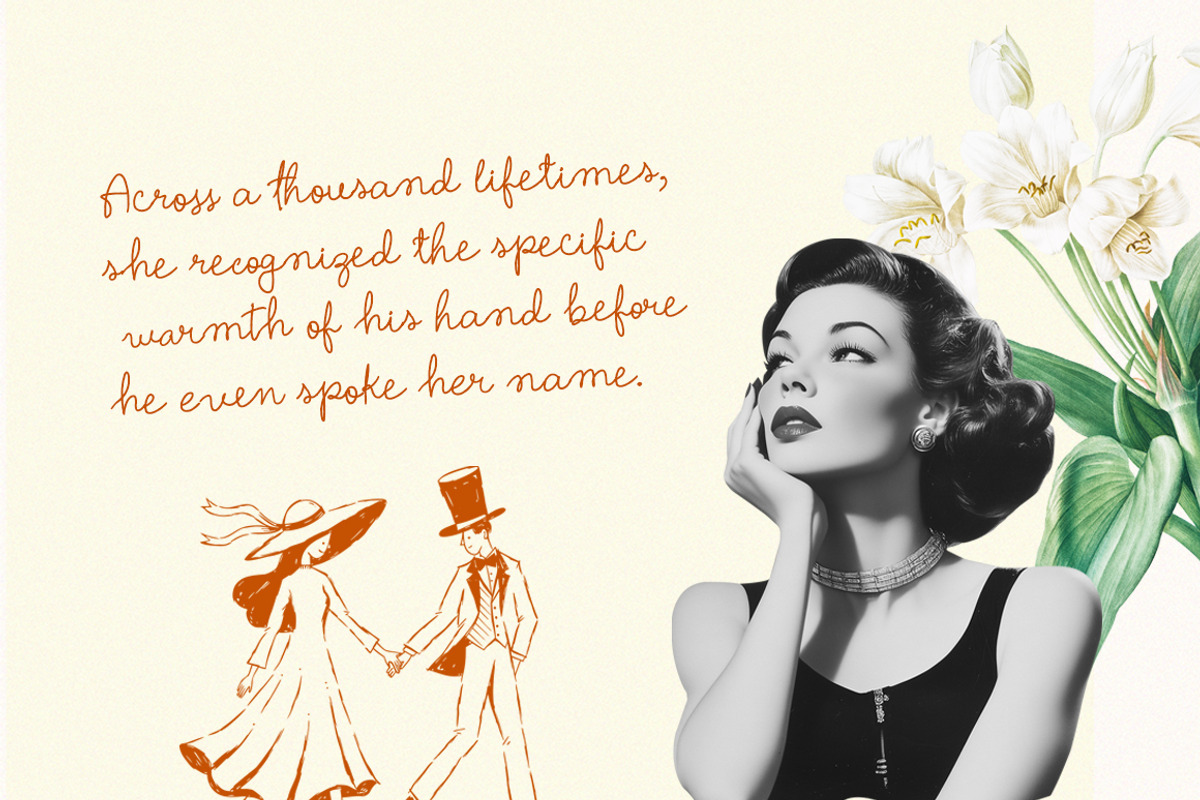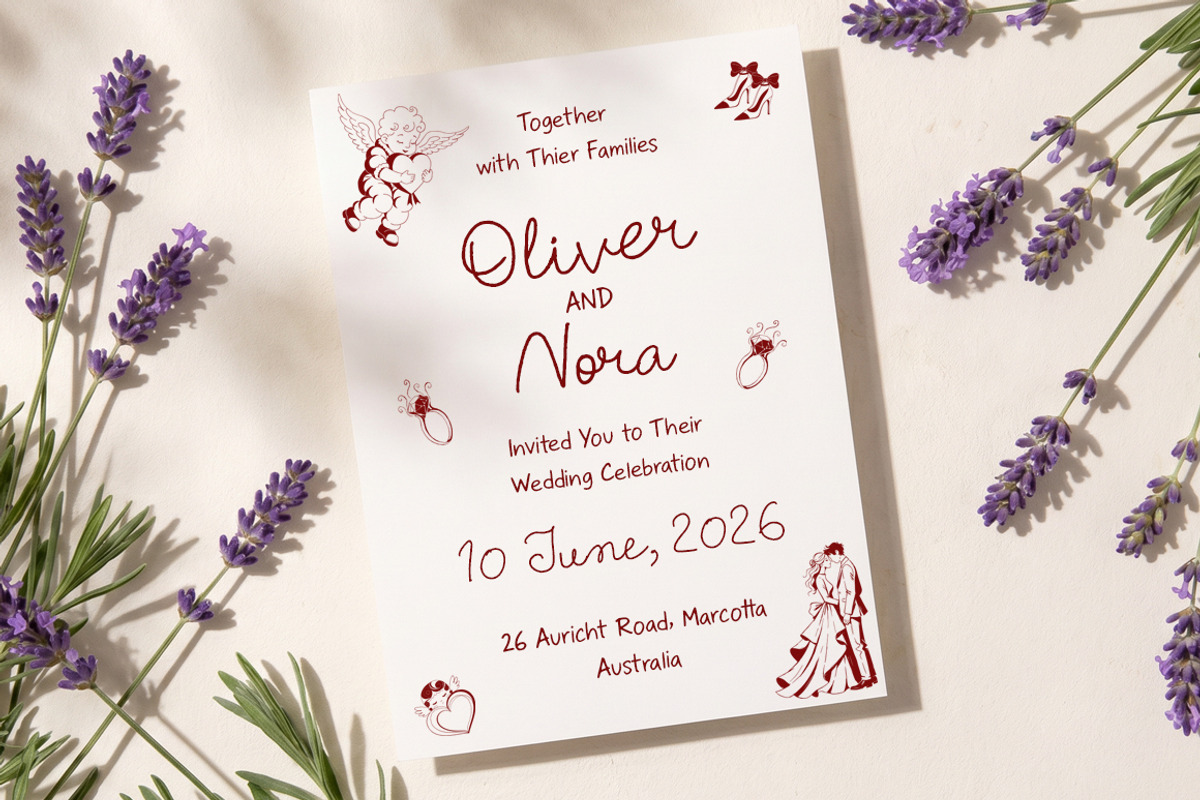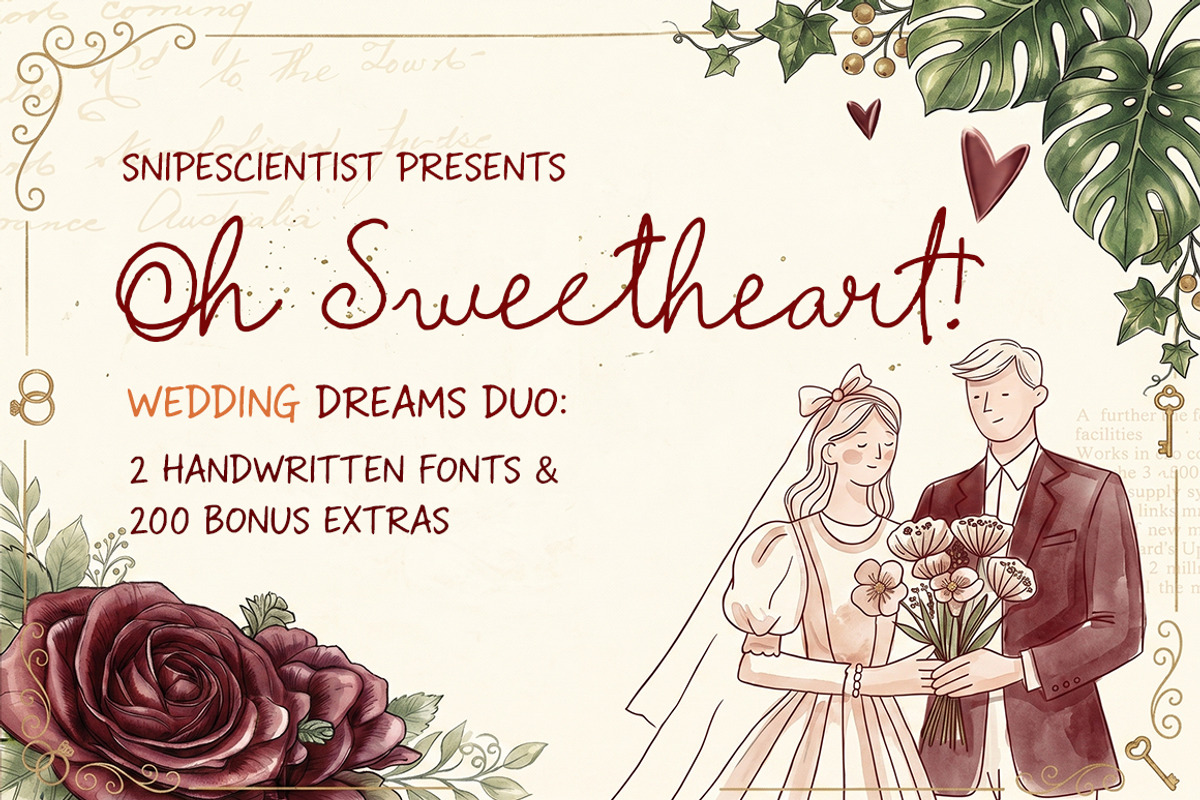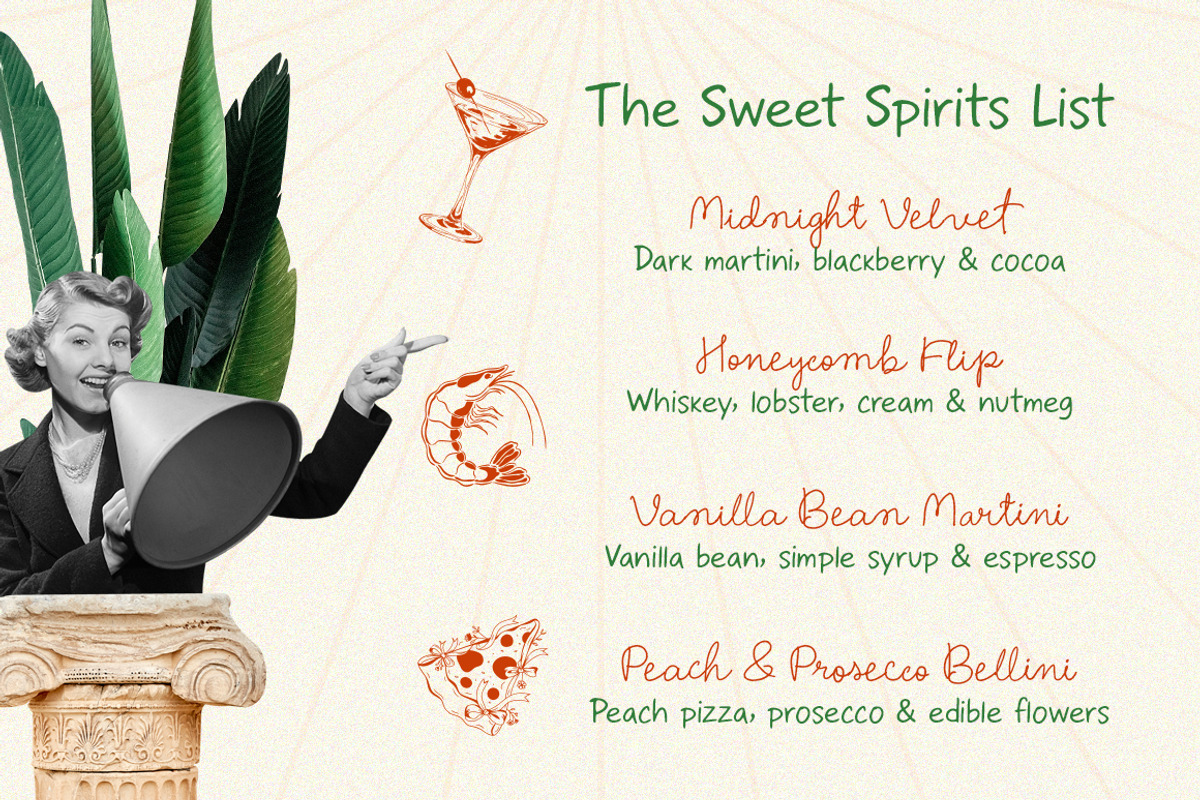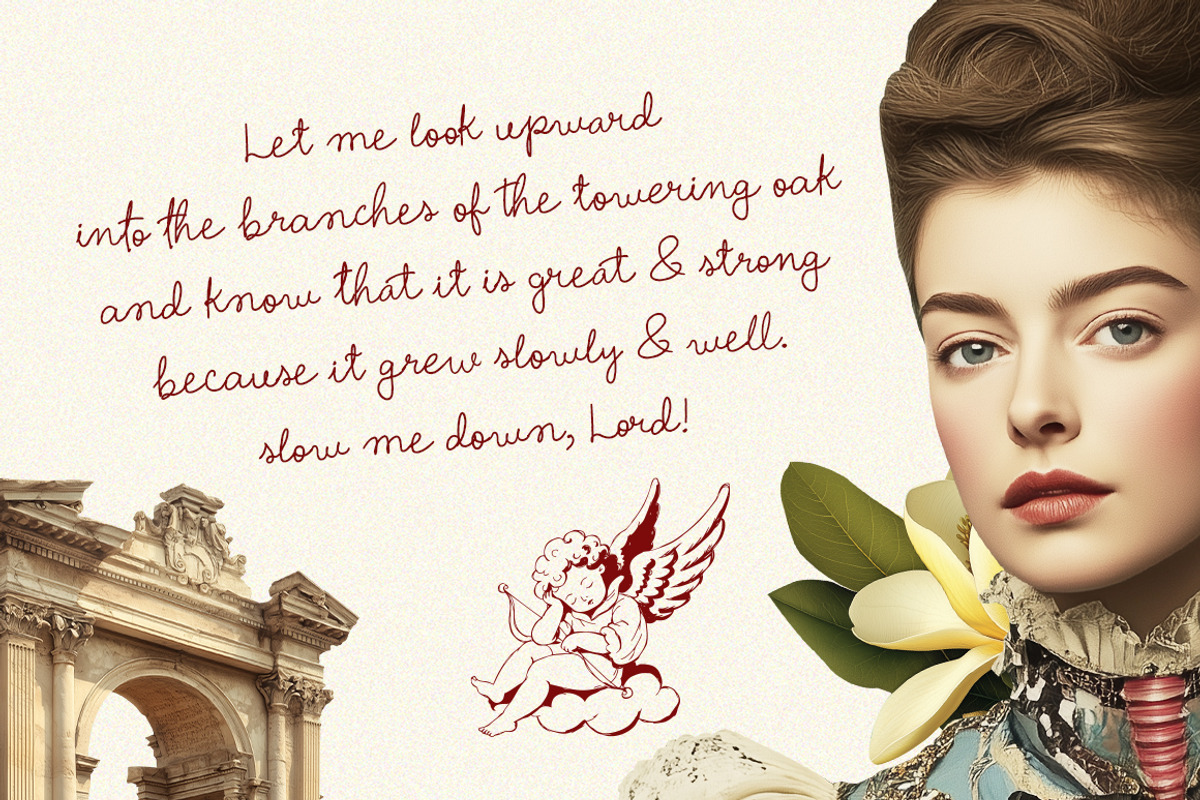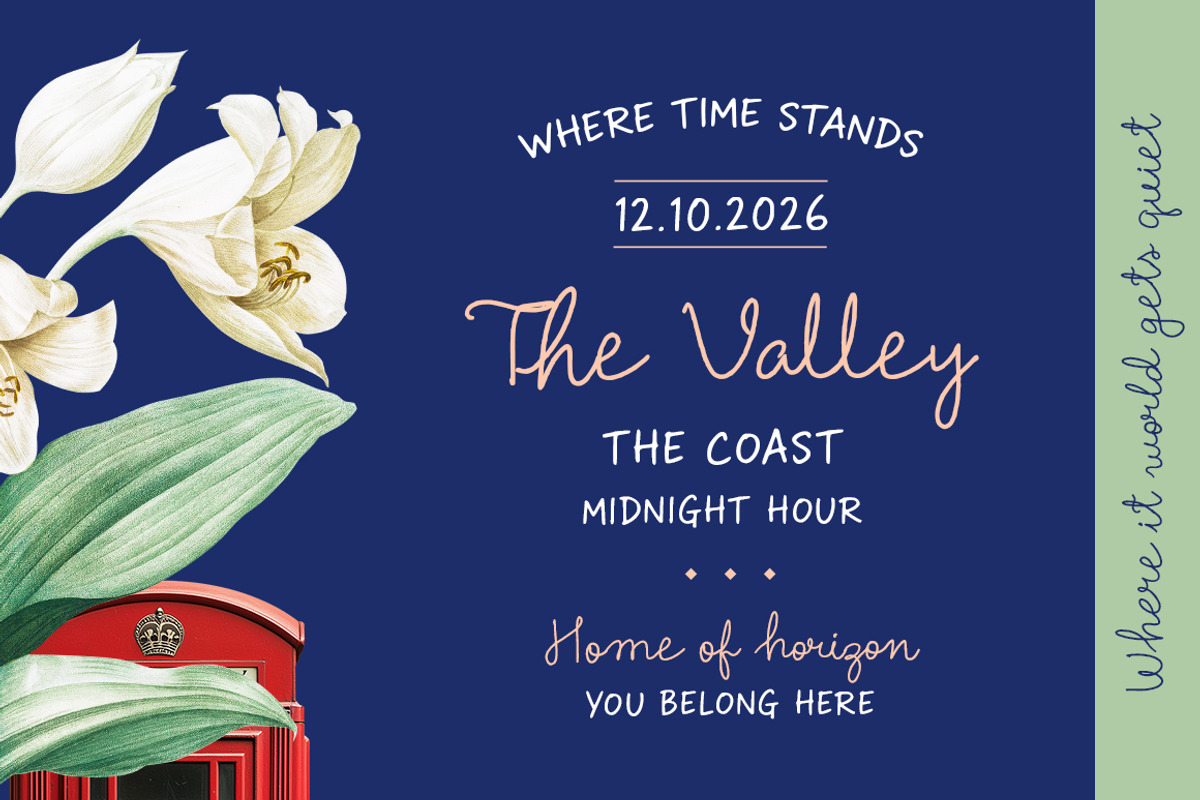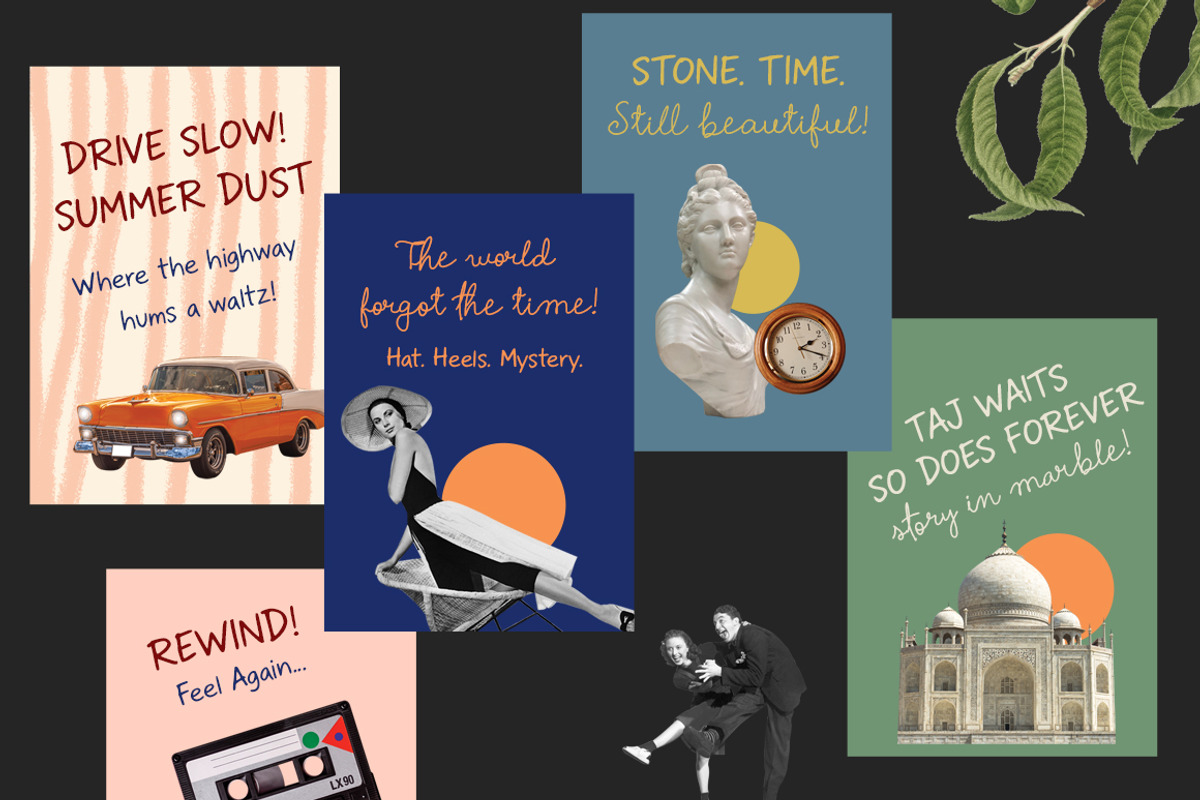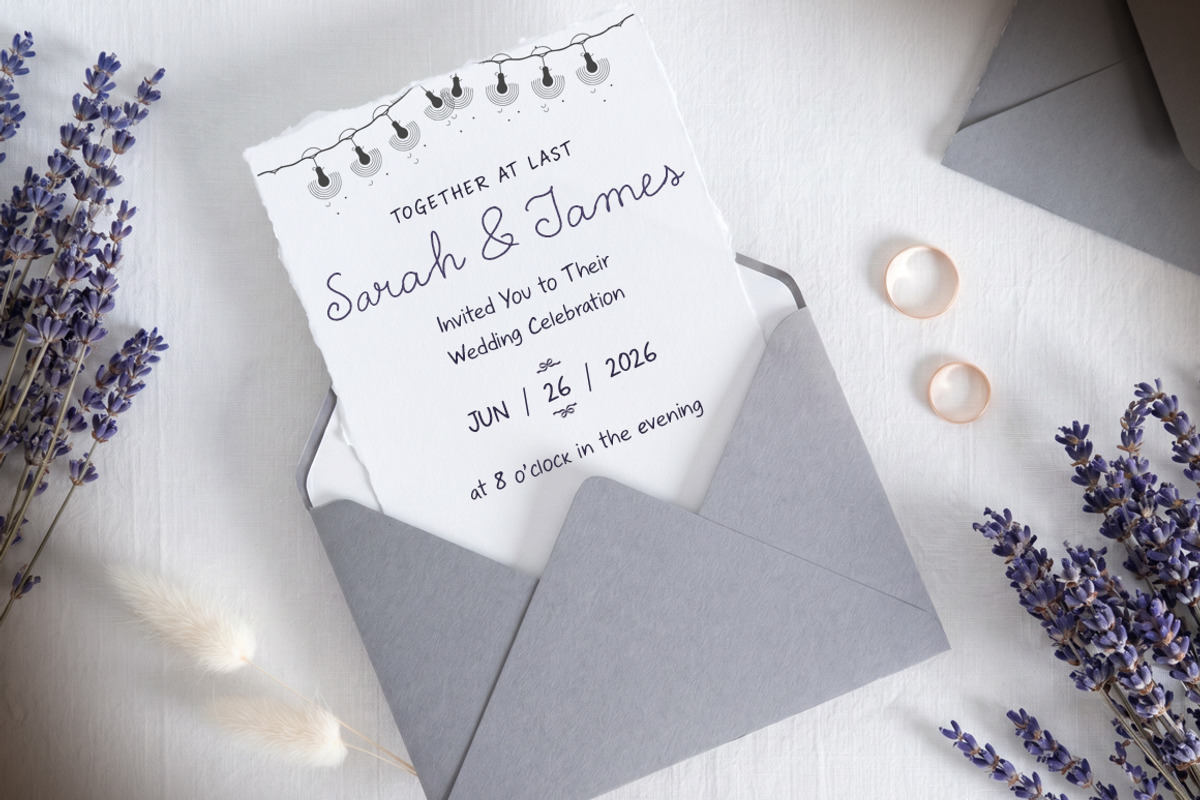
Oh Sweetheart Handwritten Font Duo
Fall in love with "Oh Sweetheart," the ultimate Wedding Dreams Font Duo!
Whether you are designing bespoke wedding invitations, elegant branding, or romantic social media content, Oh Sweetheart provides a perfectly paired aesthetic. This set features a charming, flowing script and a matching clean sans that work together in perfect harmony.
To make this a complete design toolkit, I’ve included 200 hand-drawn wedding illustrations. From delicate florals and botanical branches to wedding cakes, rings, and champagne flutes - this bundle has everything you need to create a cohesive look for the "Big Day."
Oh Sweetheart Script: A bouncy, elegant handwritten font with beautiful ligatures.
Oh Sweetheart [Sansf]: The perfect companion font for clean, readable sub-headings and body text.
Wedding Invitation Suites & Stationery
Save the Date Cards
Wedding Signage & Table Numbers
Logo Design & Branding
Cricut & Silhouette Craft Projects (Physical products)
Social Media Quotes & Greeting Cards
Give your projects a touch of handmade elegance with the Oh Sweetheart Wedding Dreams Duo. Happy Designing!